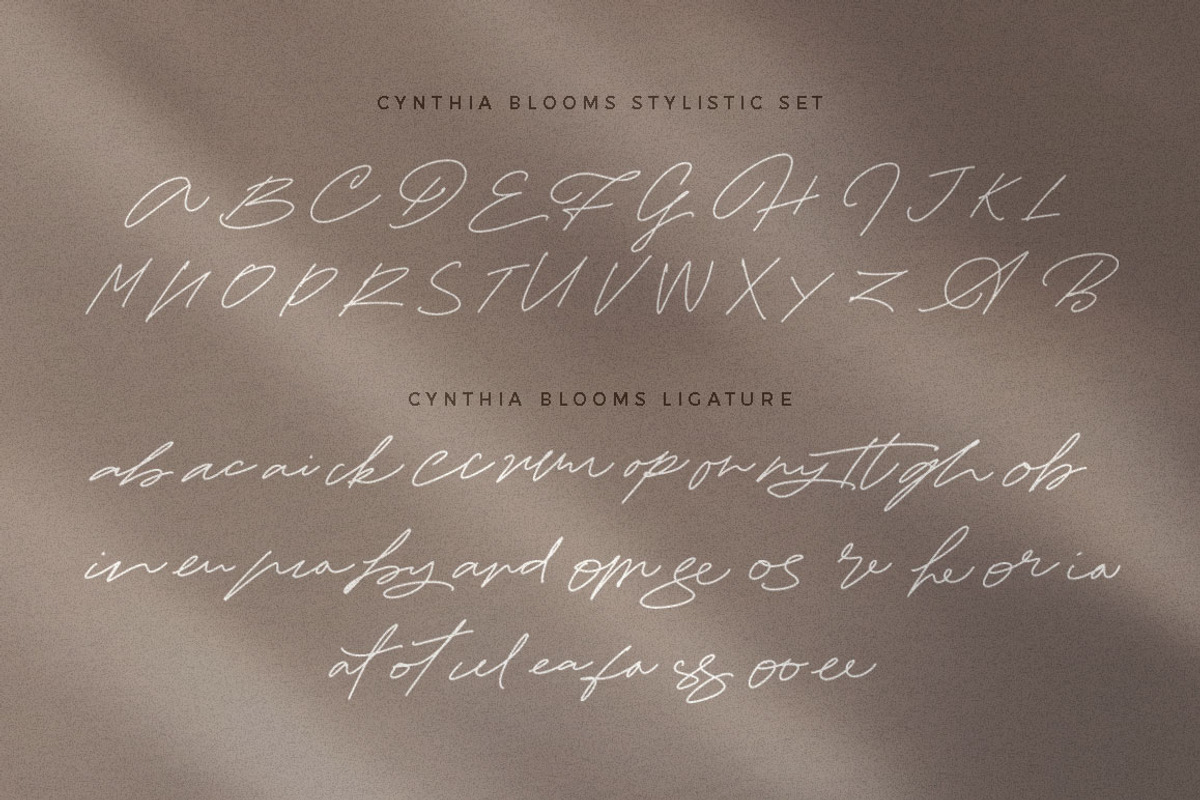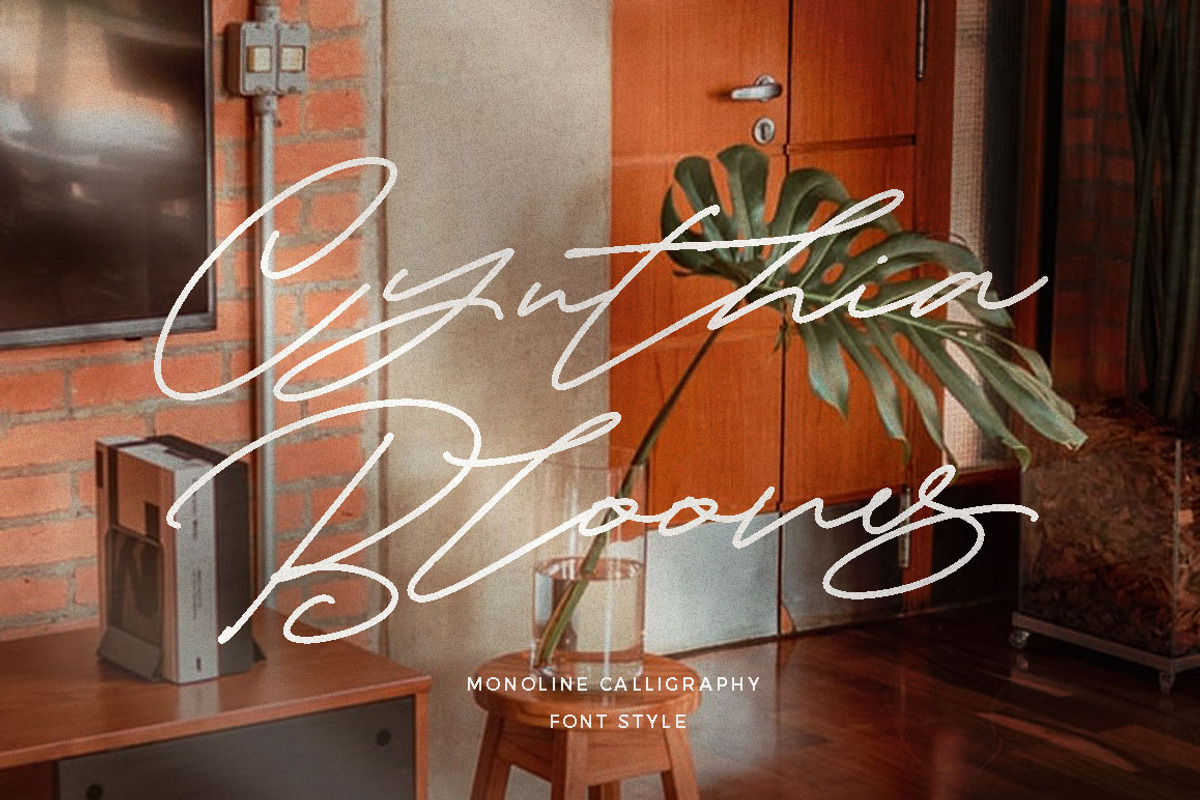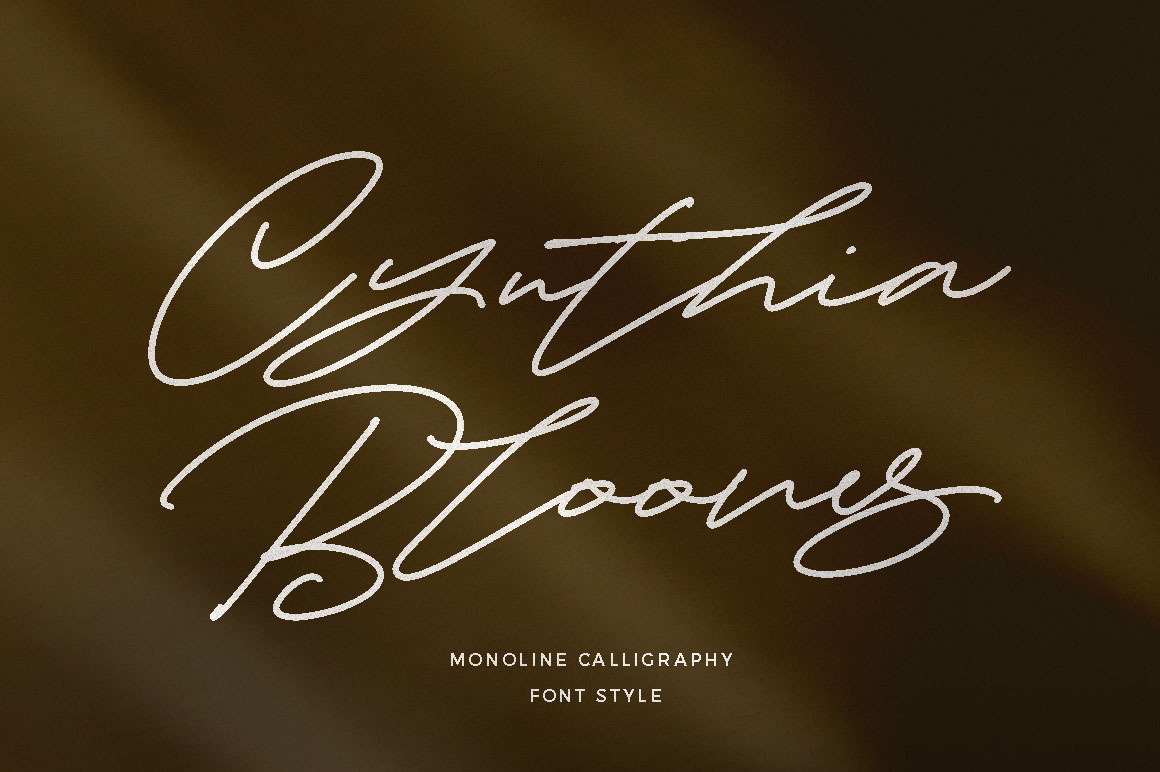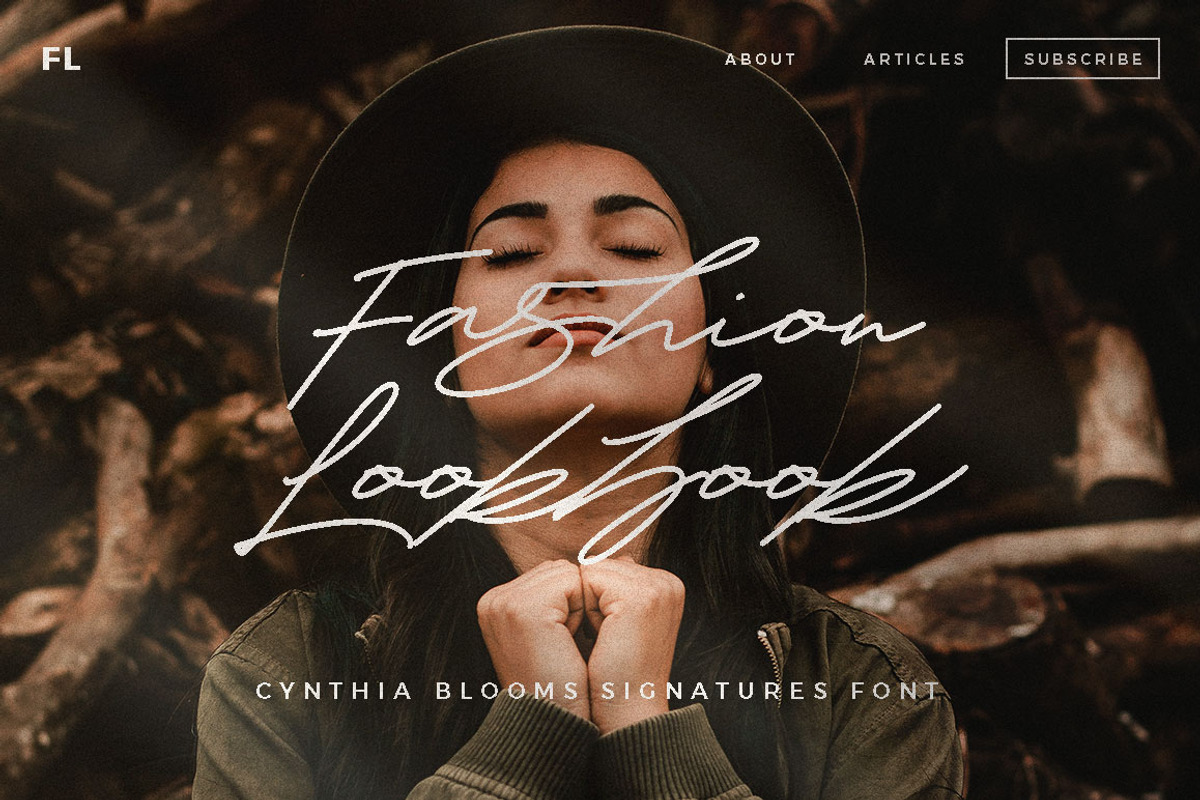
Cynthia Blooms - Ligature Font
Introducing to The Cynthia Blooms Signature Monoline Font
Cynthia Blooms Signature Monoline Font is attractive handwritten script, ideal for use in projects that need an organic and natural style. This font is great for logo, logotype, branding,wedding, fashion, label, book cover, t-shirt, instagram post, and other, and can add an elegant and classy look to your work.